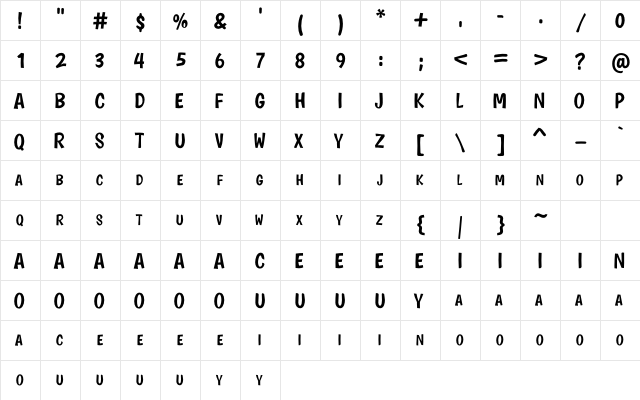
Kartoon Kids Regular
| Designer | Doni Dorra |
Design Context for Kartoon Kids Typeface
Kartoon Kids has an approachable, lighthearted character — its loose, expressive forms are well-suited to children's content, casual branding, and fun-first design.
Font Pairing: Pairs well with a rounded or humanist sans for body copy, maintaining the friendly tone without relying on Kartoon Kids to carry extended reading.
Pro Tip: Avoid using Kartoon Kids for long passages of text — it works best for headlines, labels, and short calls to action.